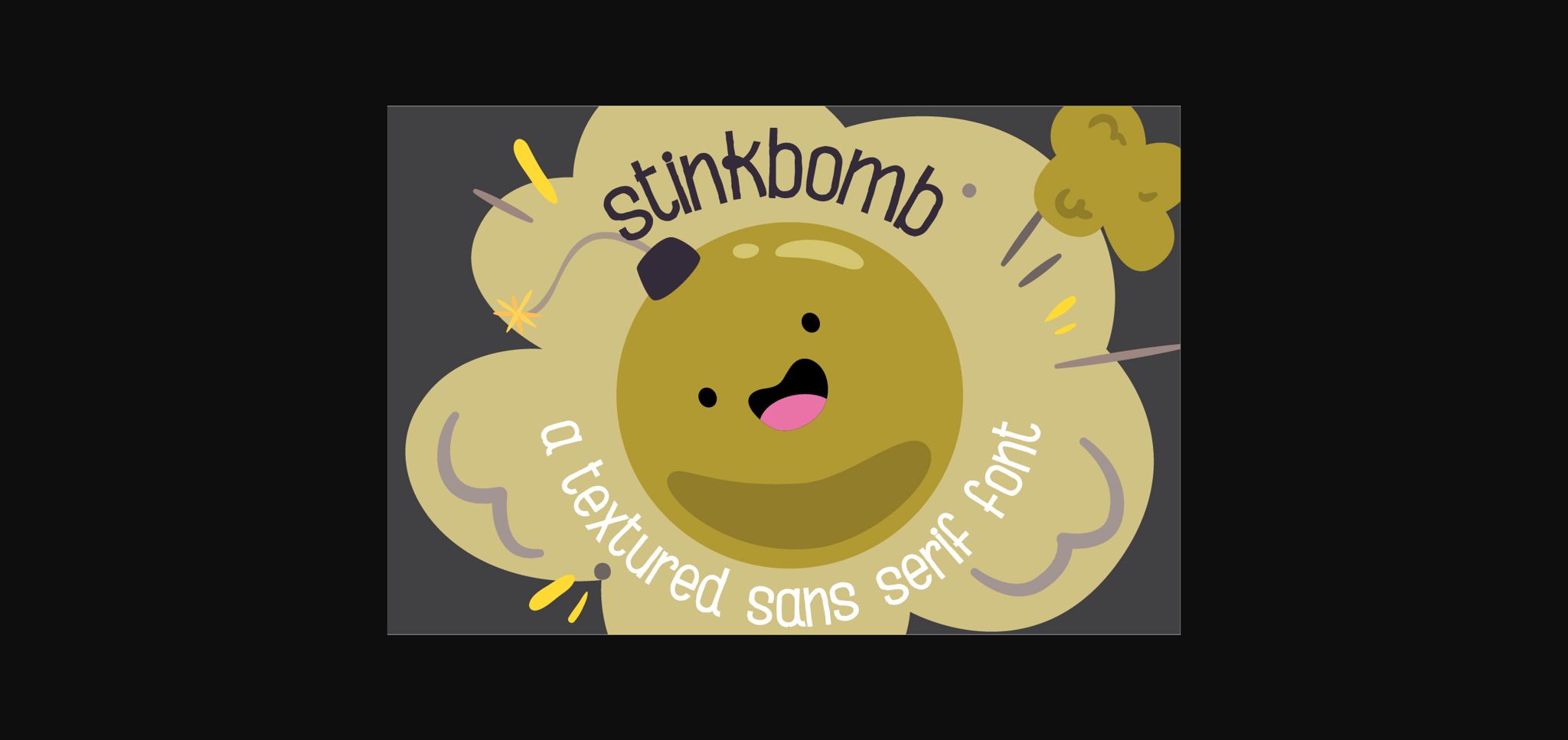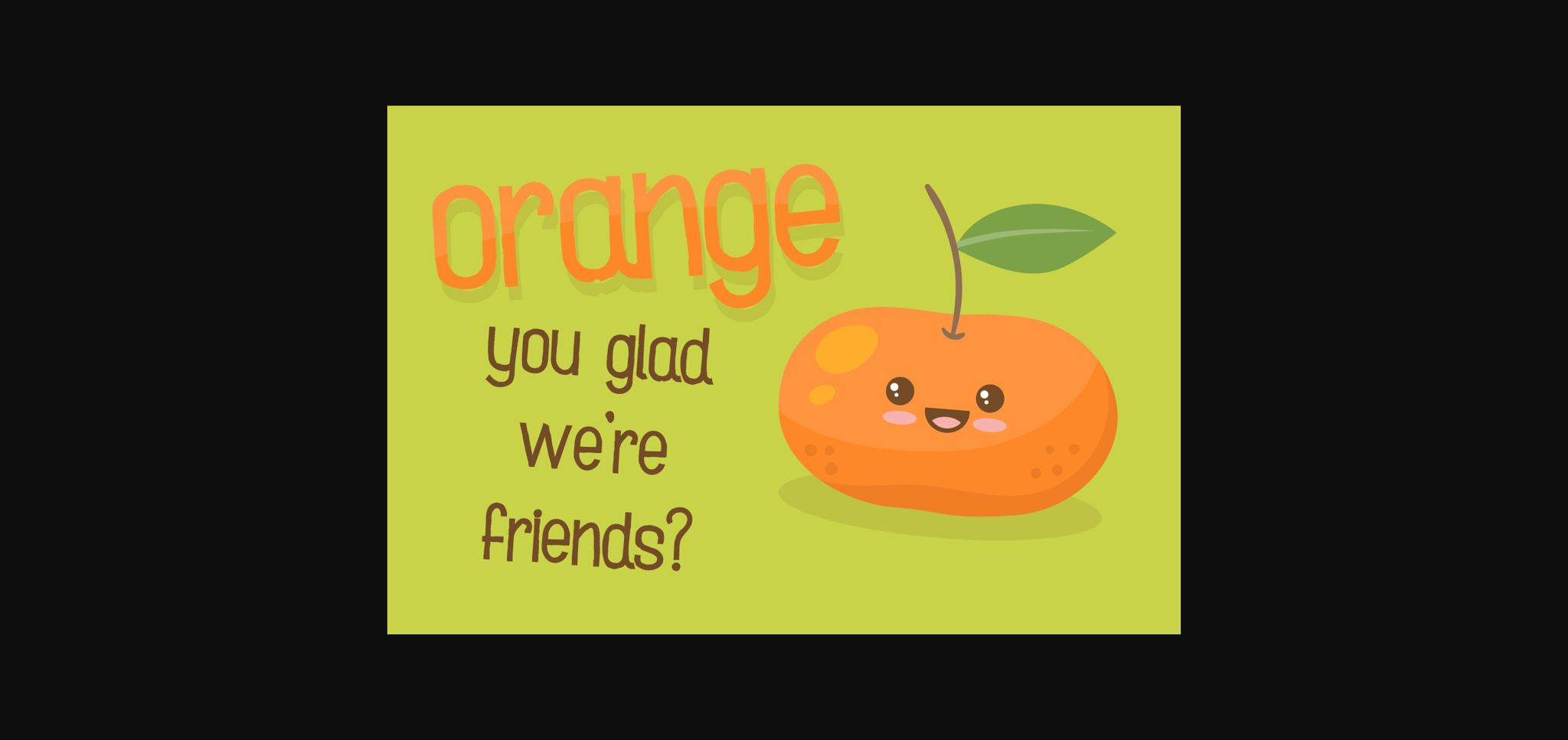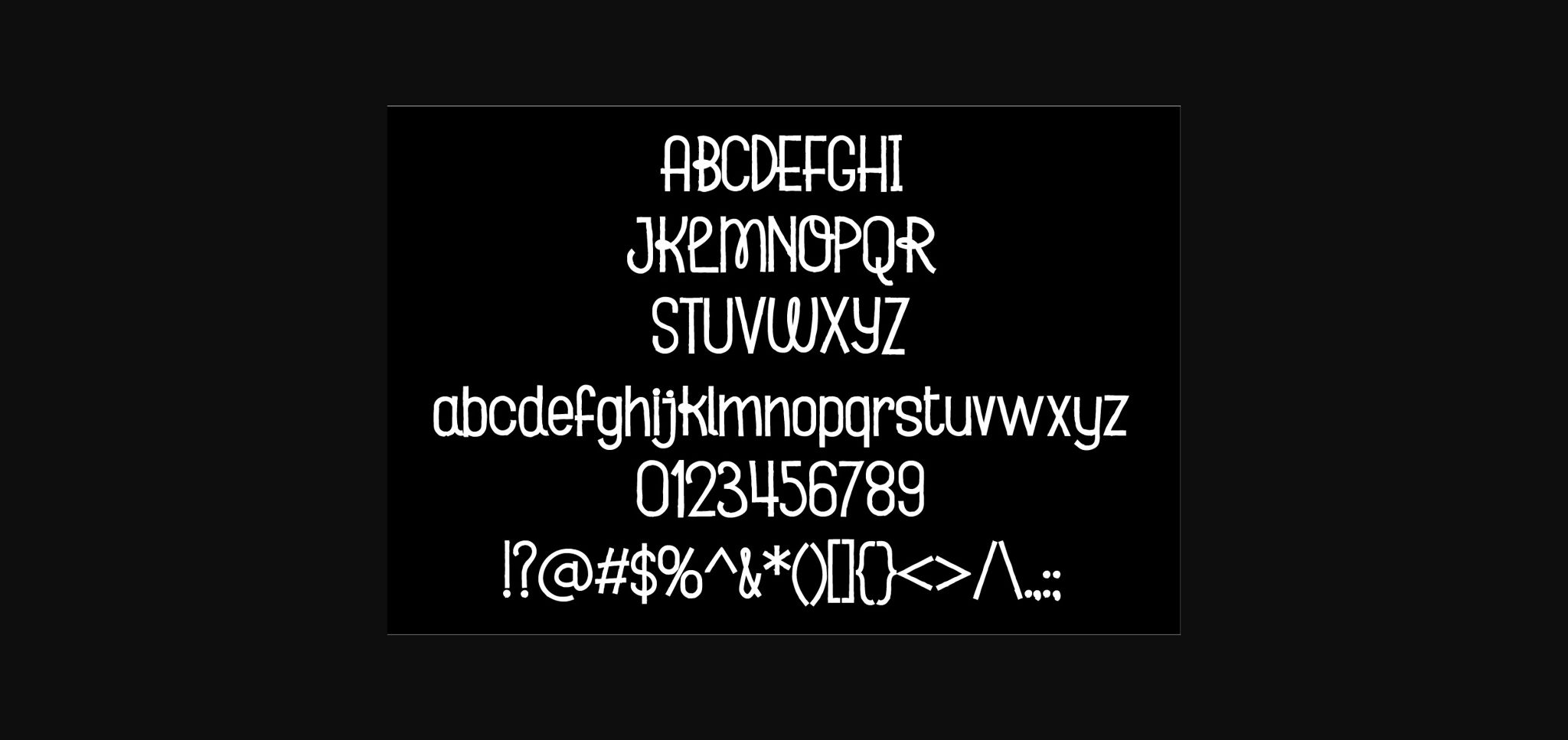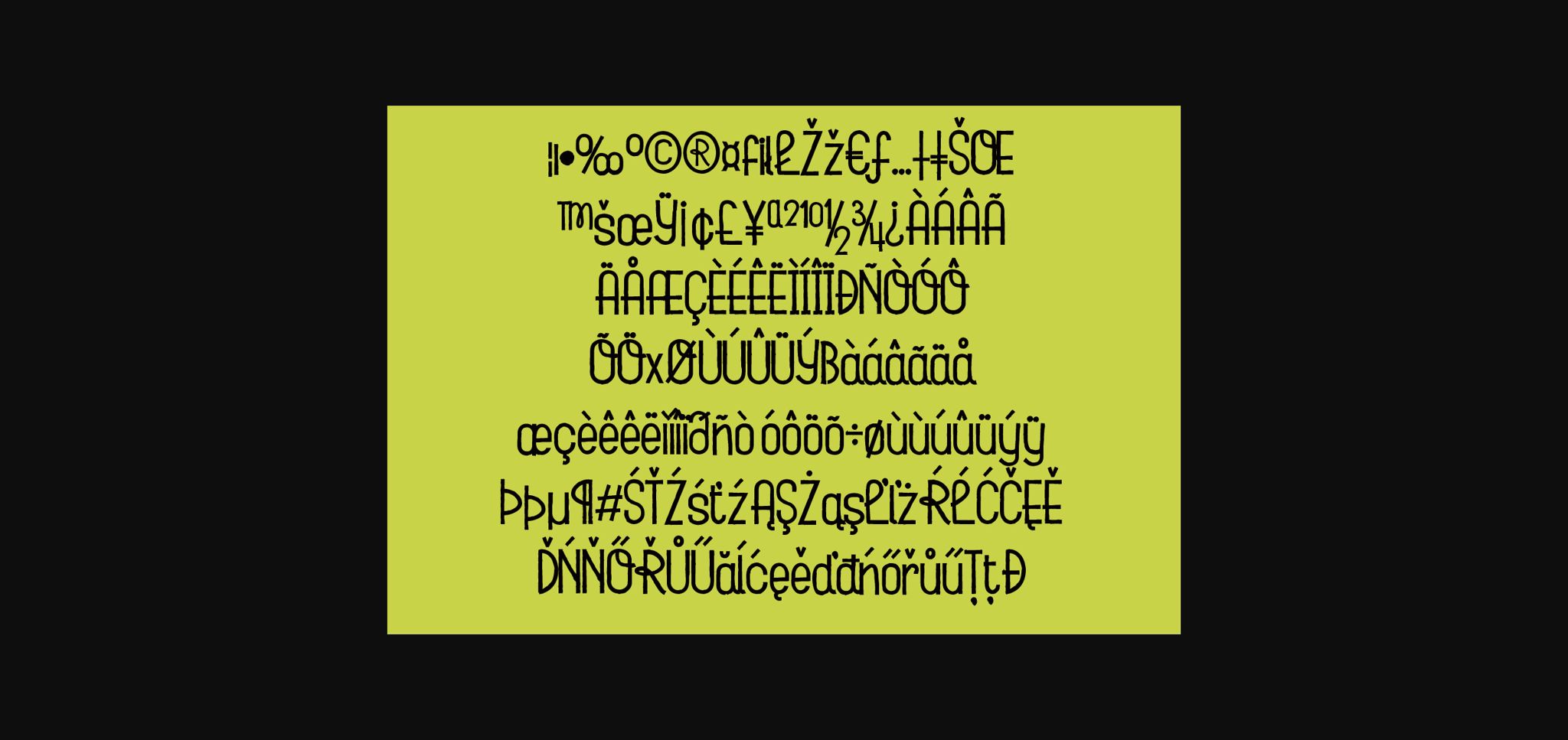
About PN Stinkbomb Font
Stinkbomb is a minimal, yet friendly and elegant sans serif font. Suitable to a wide variety of designs due to its neat and simple style, Stinkbomb has the potential to become your favorite go-to font, no matter the occasion!